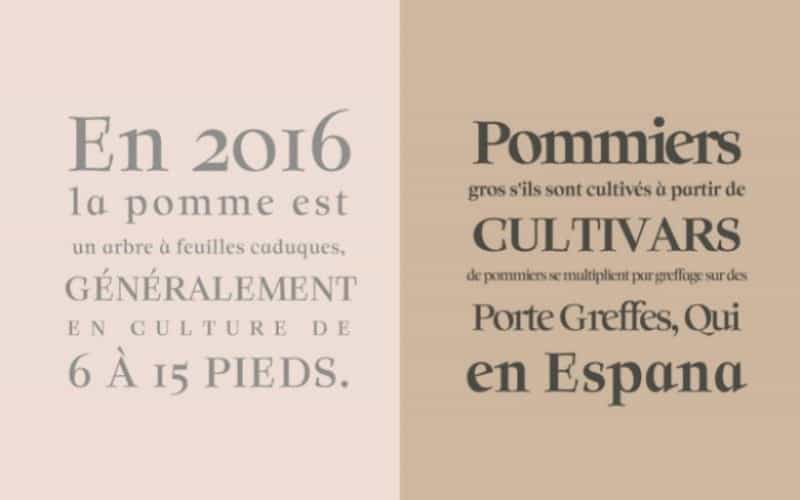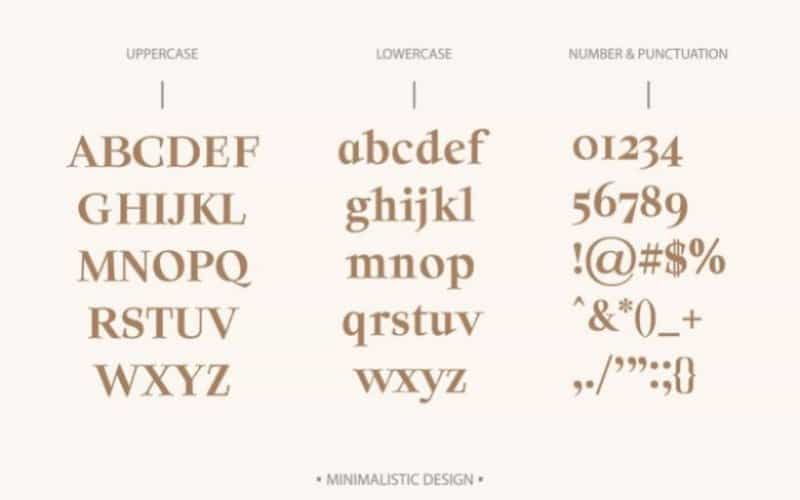
Hey Guy’s. Thank you for looking Solomon Font. Solomon is an elegant style minimalist rounded serif font with a soundly unique design that we think good people everywhere will cherish.